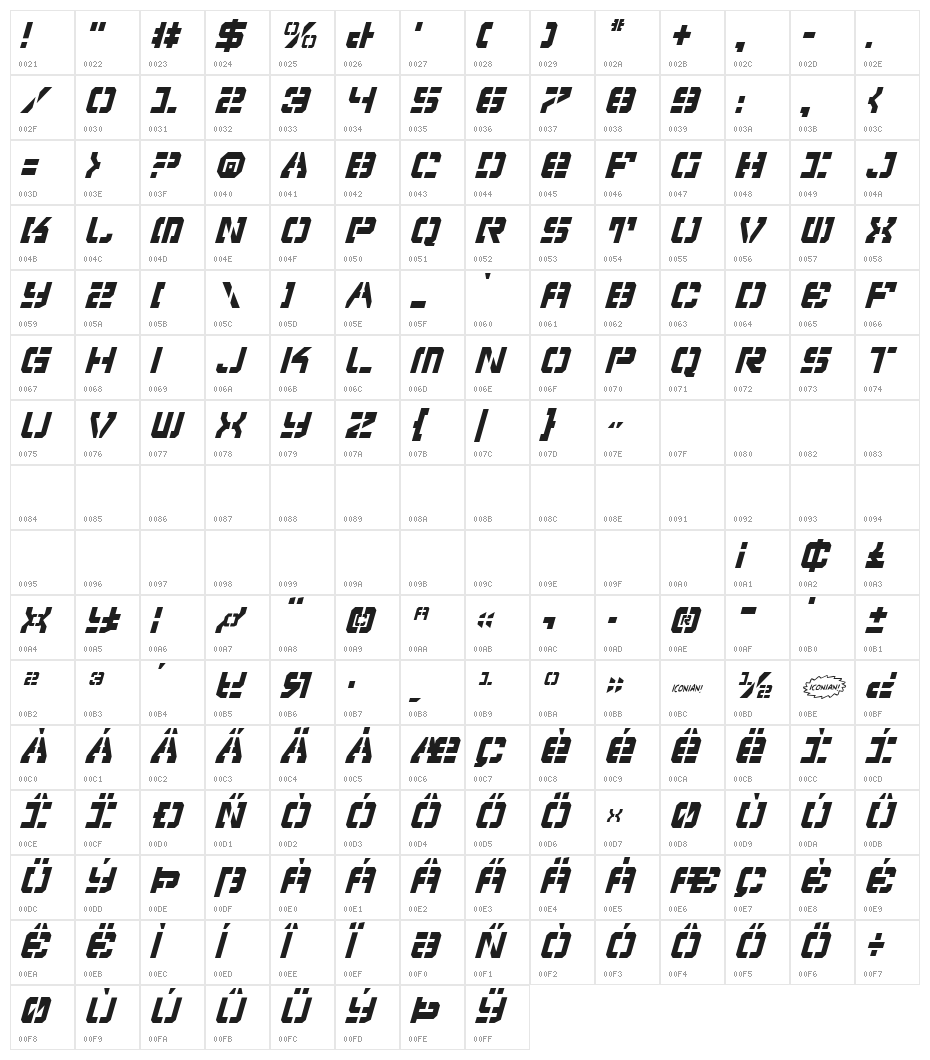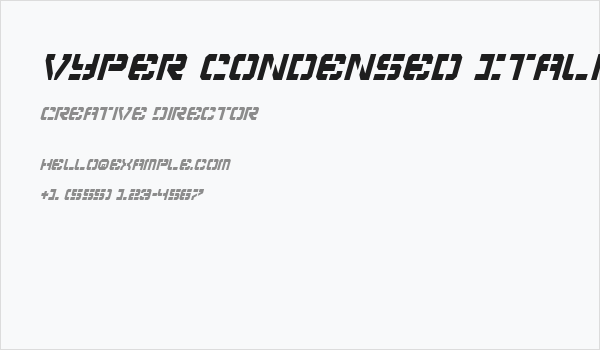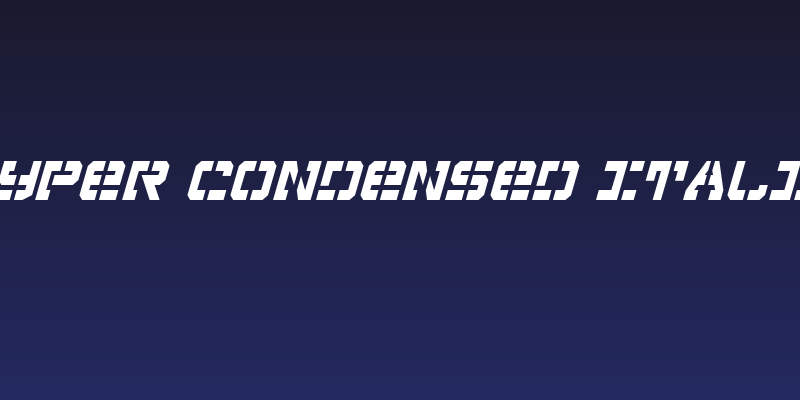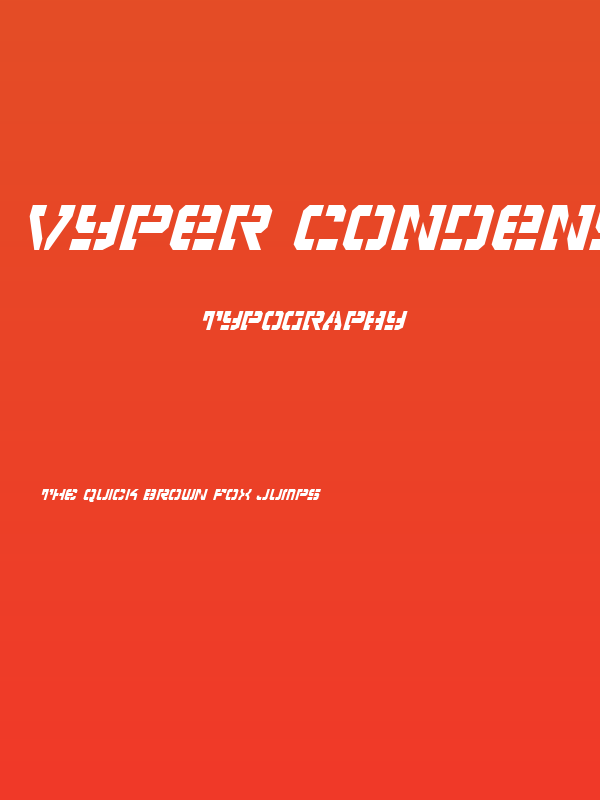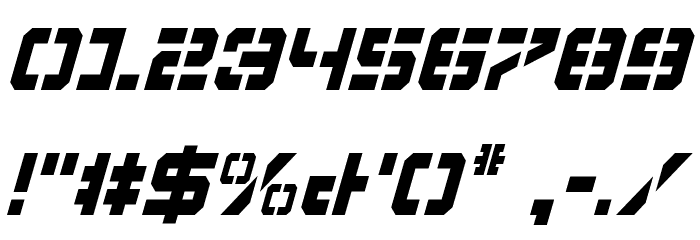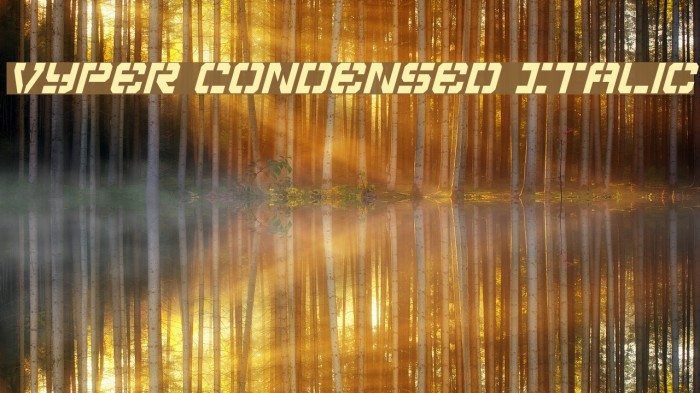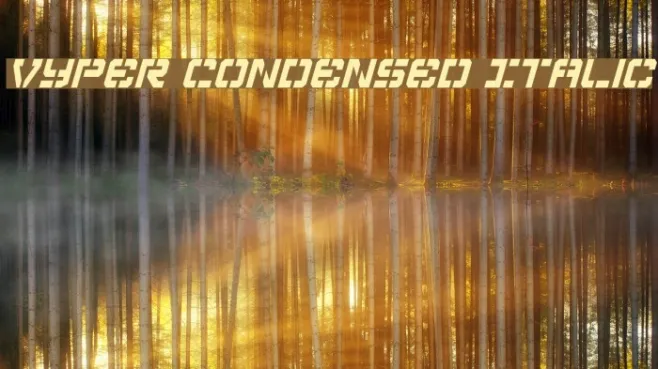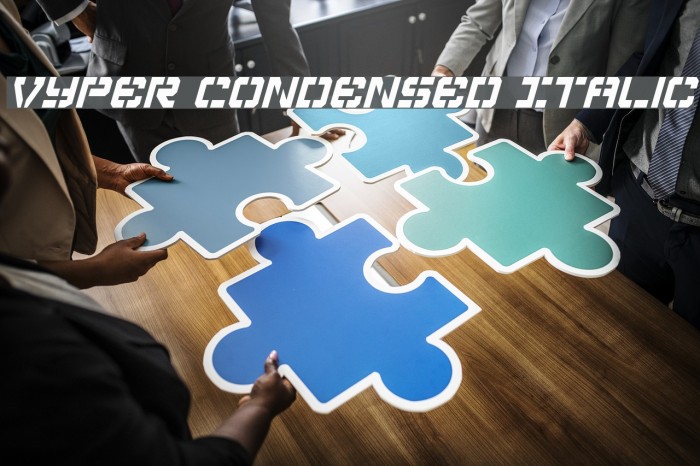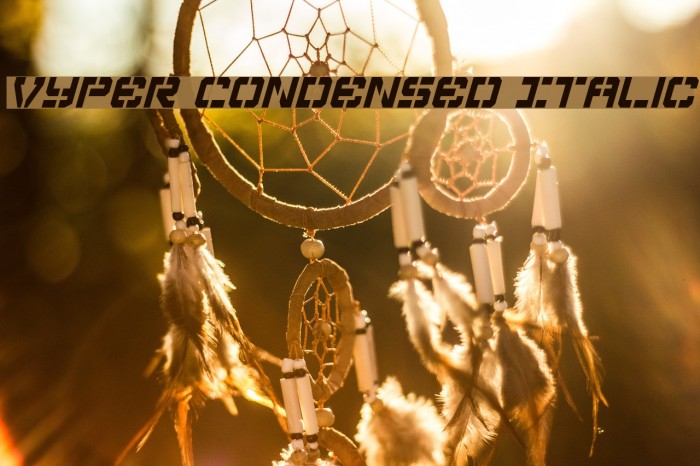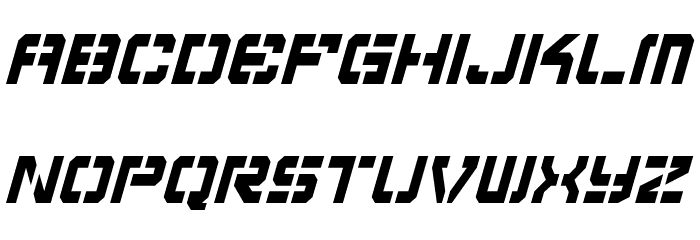
Vyper Condensed Italic Font
Vyper Condensed Italic Description
This font features a bold, condensed style with a distinct italic slant, giving it a dynamic and forward-moving appearance. The characters are constructed with sharp, angular lines, creating a futuristic and edgy look. The uppercase and lowercase letters maintain a consistent geometric form, while the numerals and special characters complement the overall design with similar angularity. The condensed width allows for efficient use of space, making it suitable for impactful headlines and titles. The high contrast in stroke thickness enhances its boldness, ensuring visibility and readability even at smaller sizes.
| Overall Style | Futuristic |
| Proposed Projects | Ideal for sci-fi themed projects, tech branding, video game titles, and modern posters. |